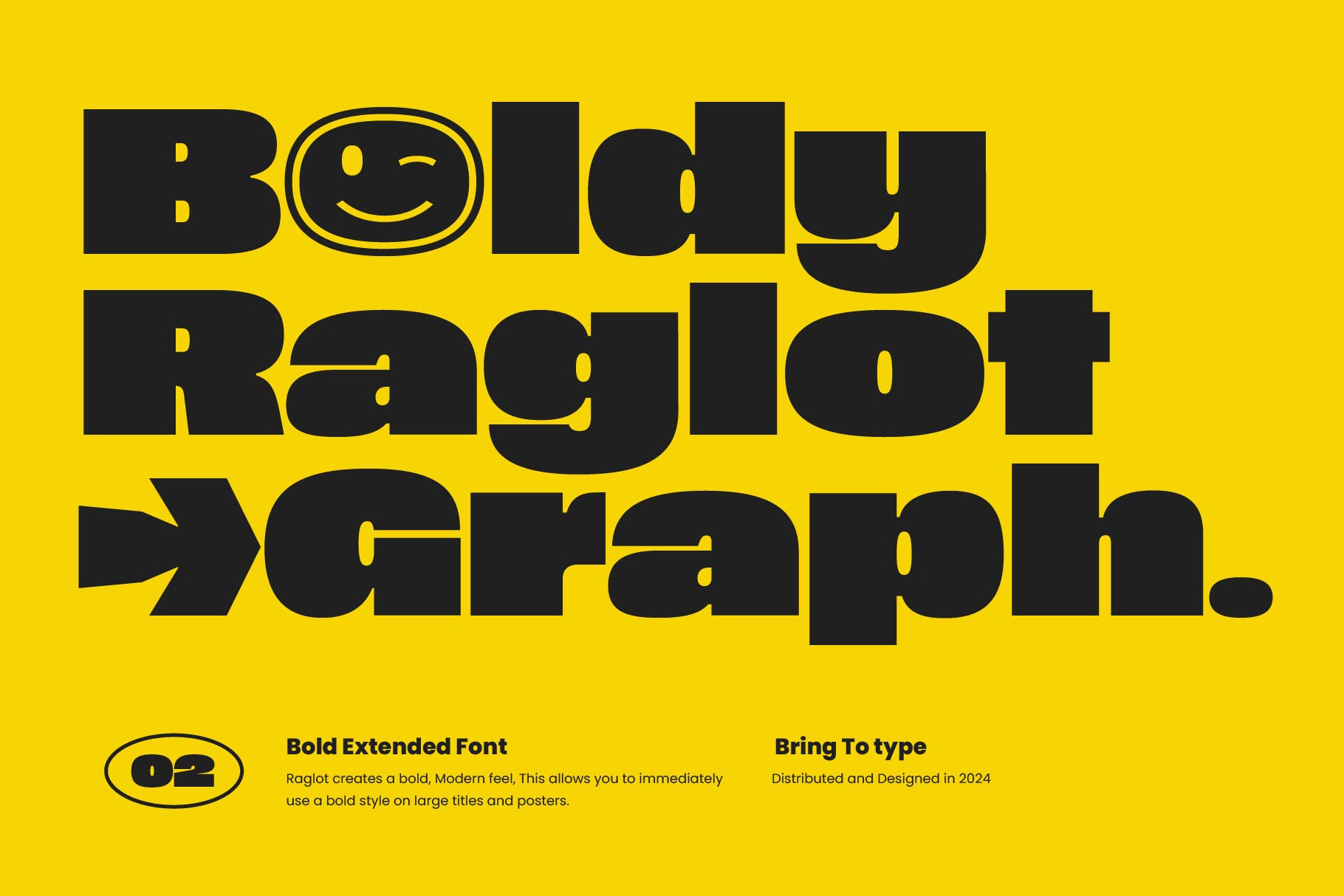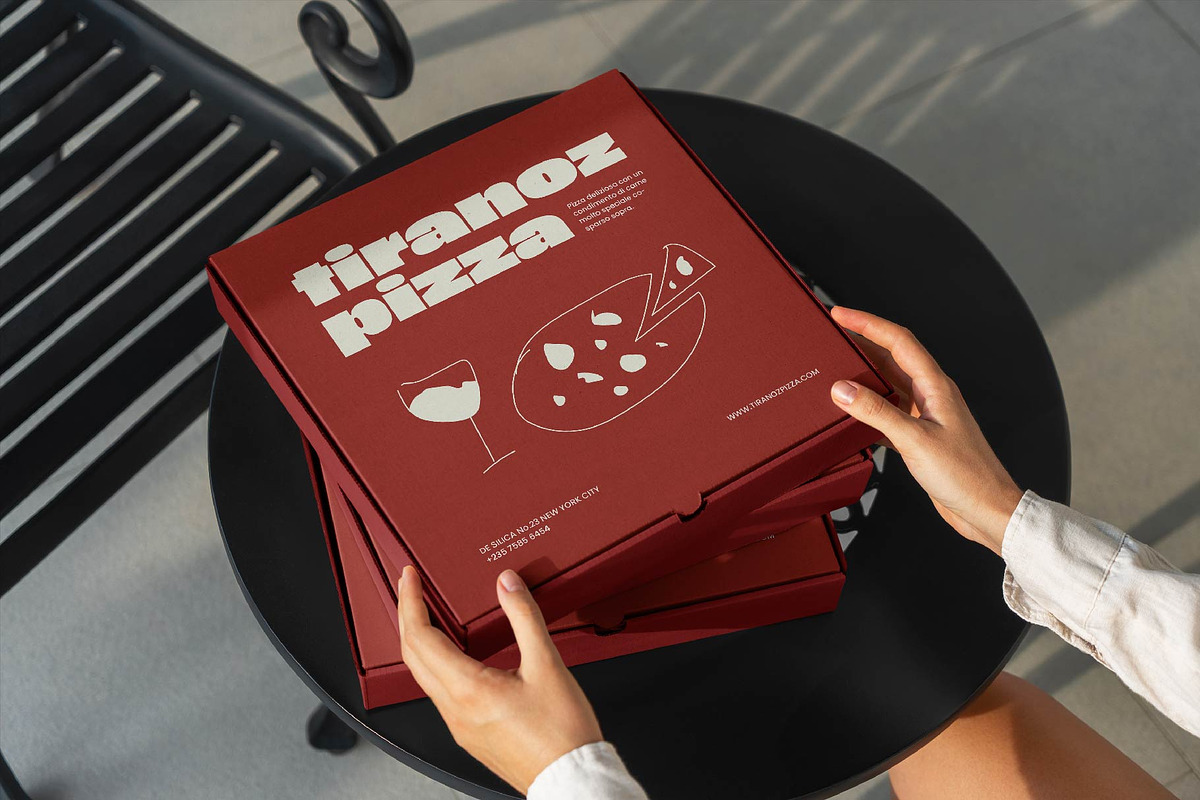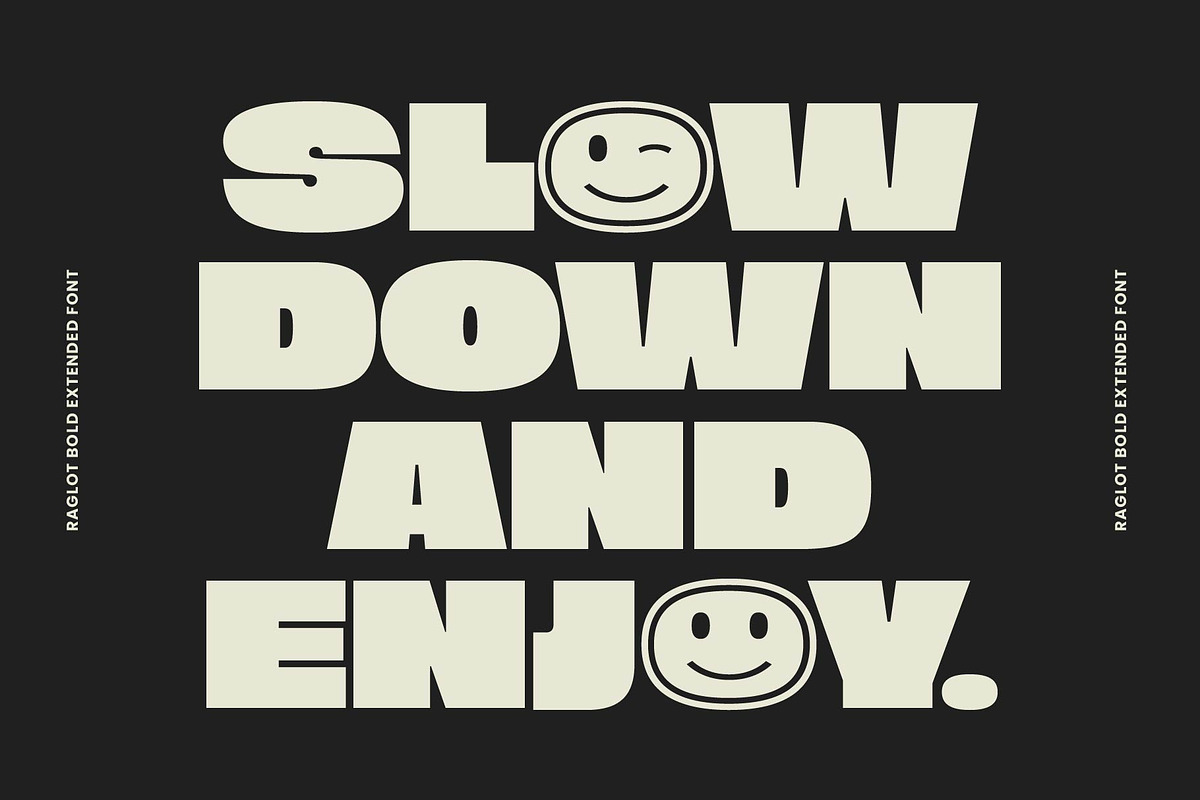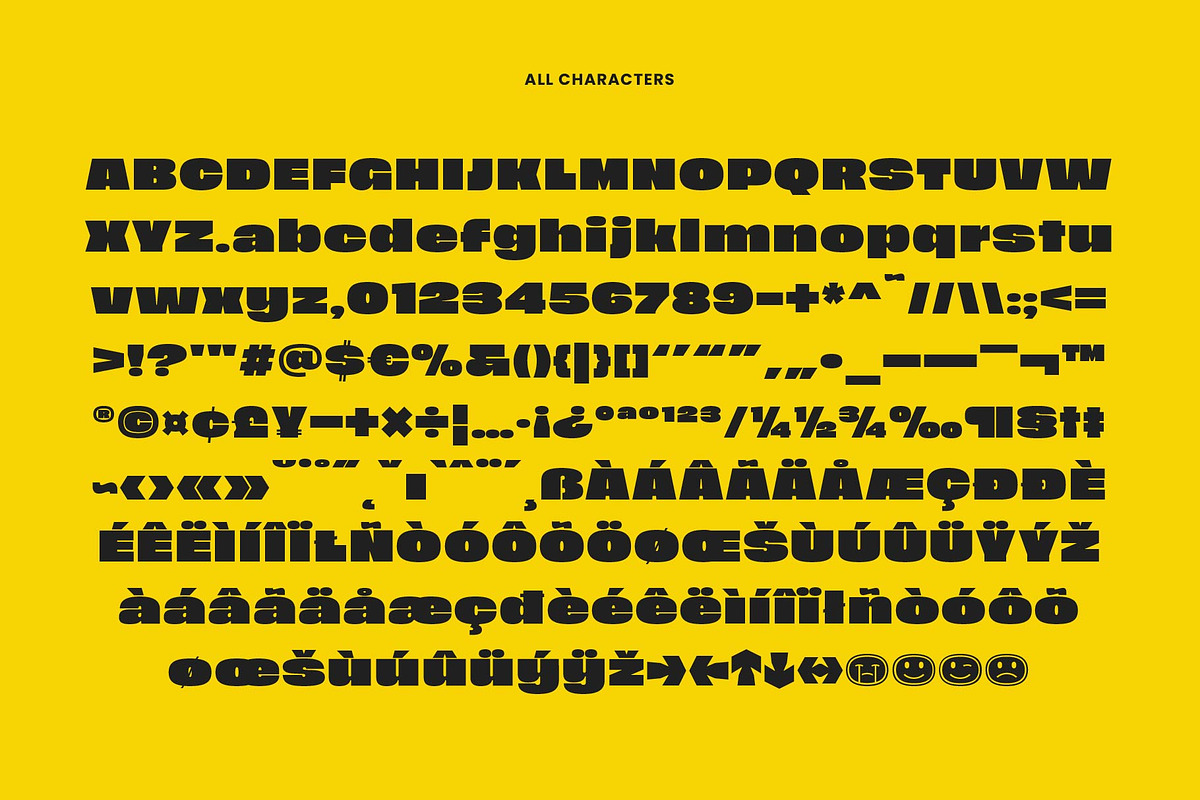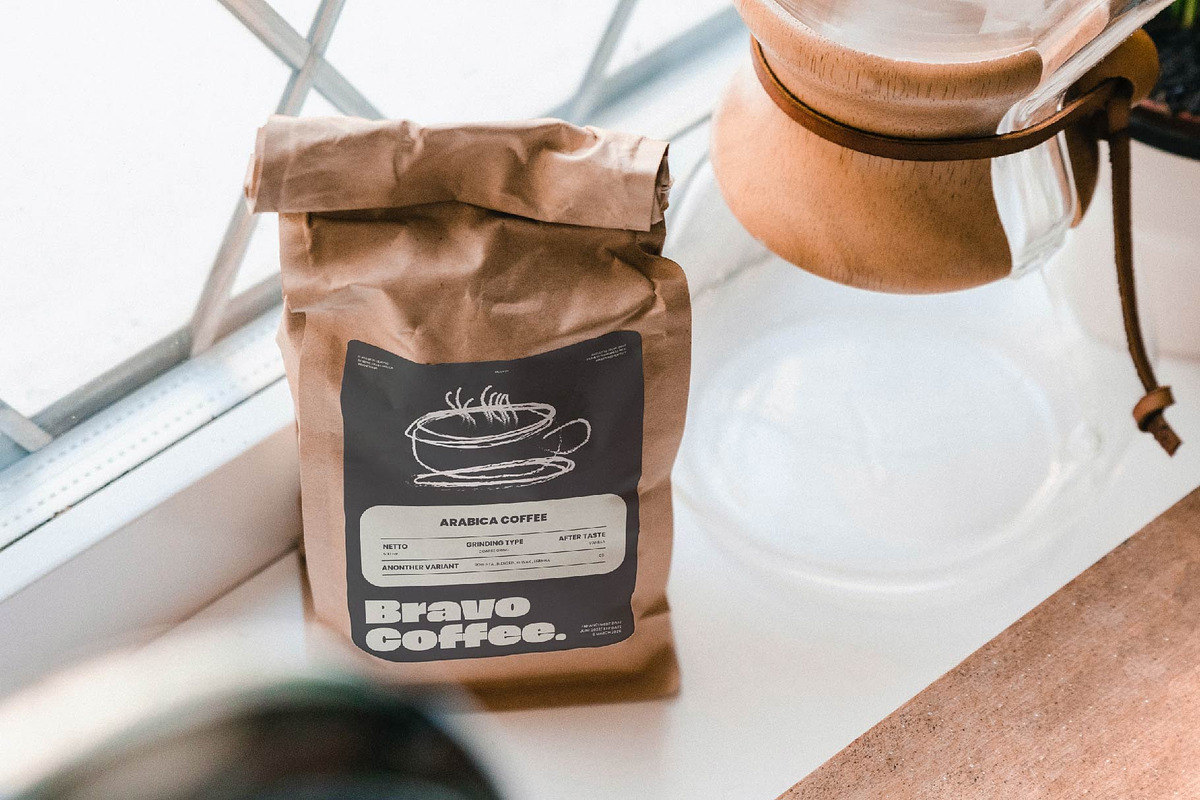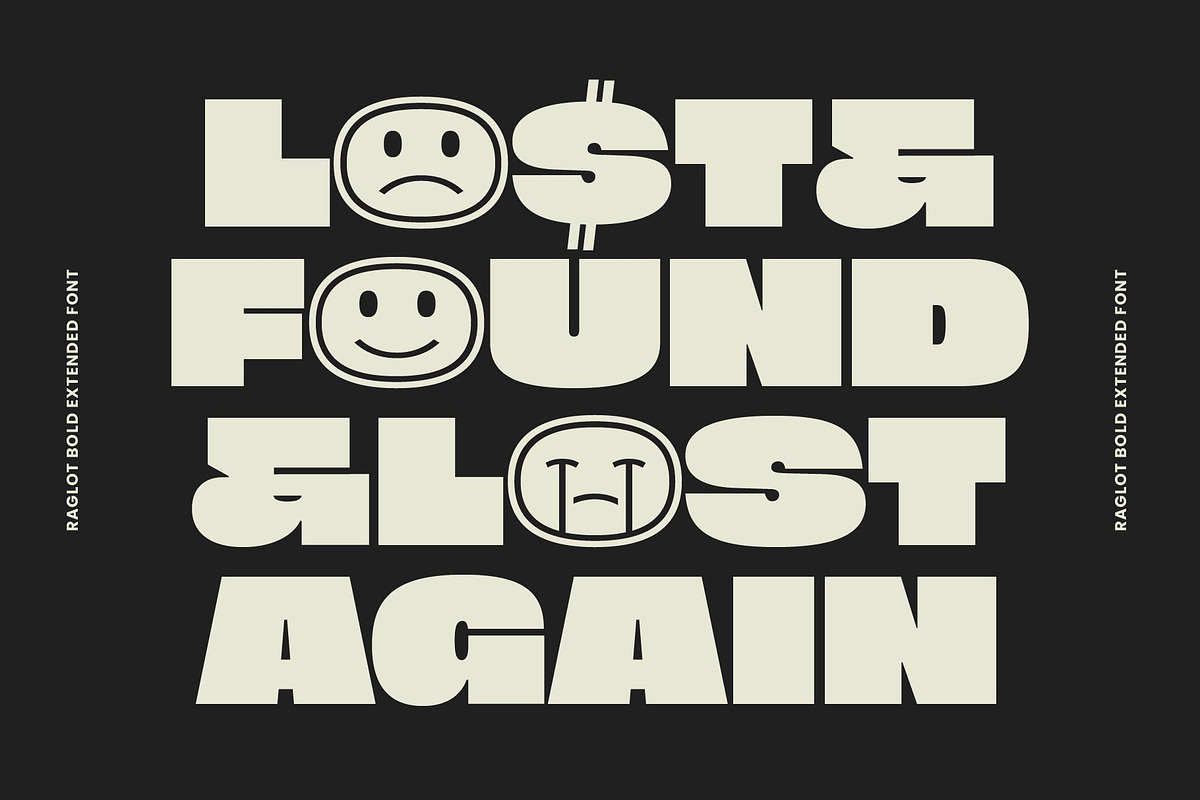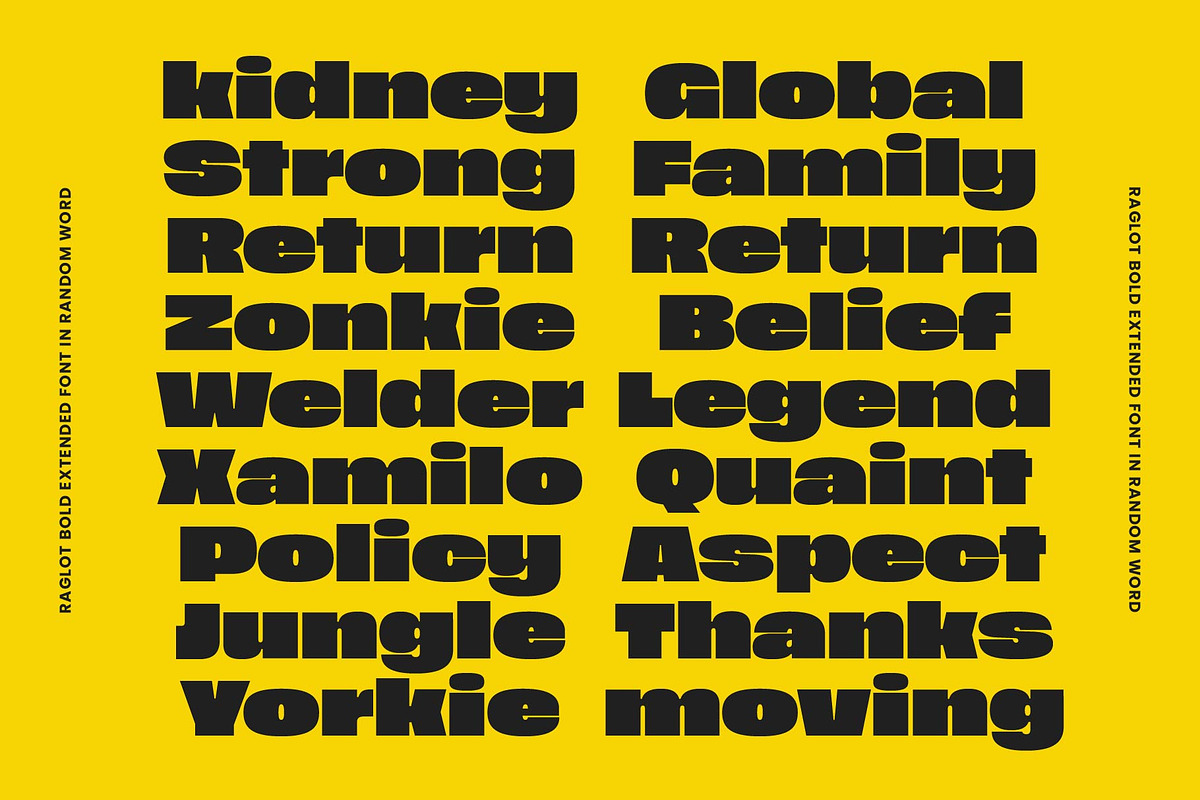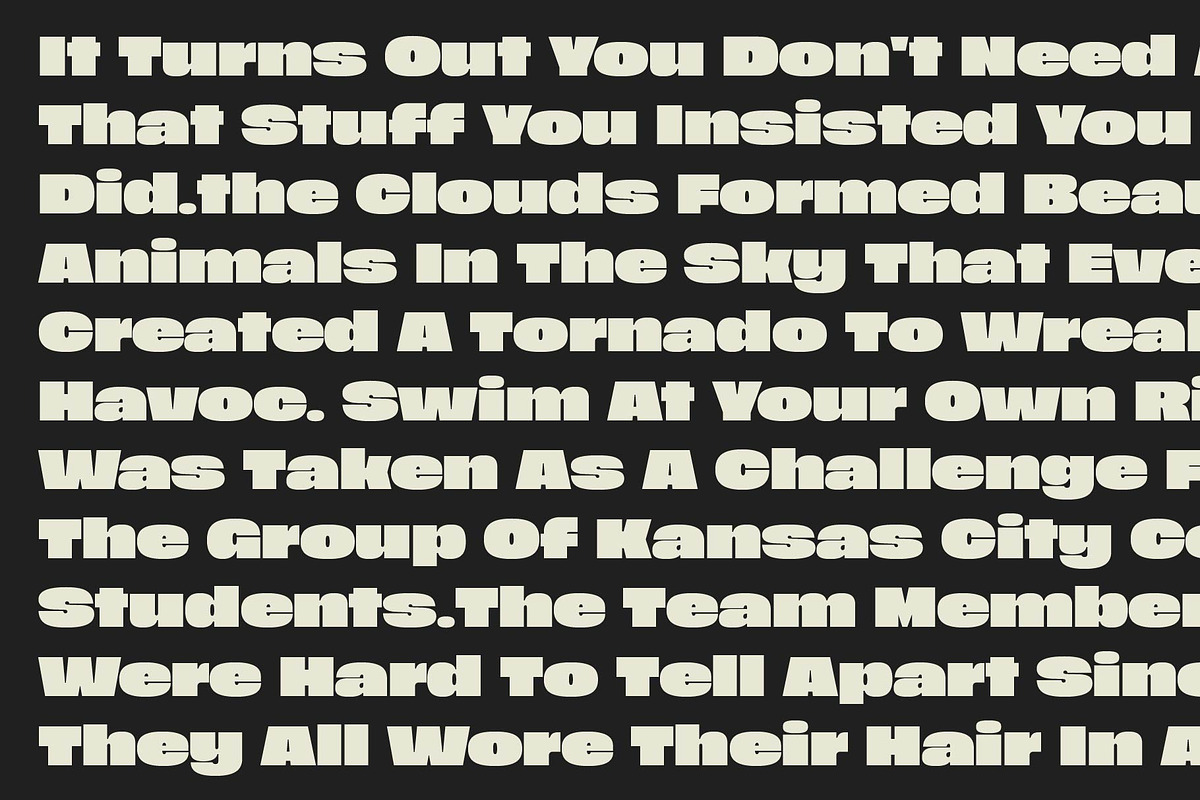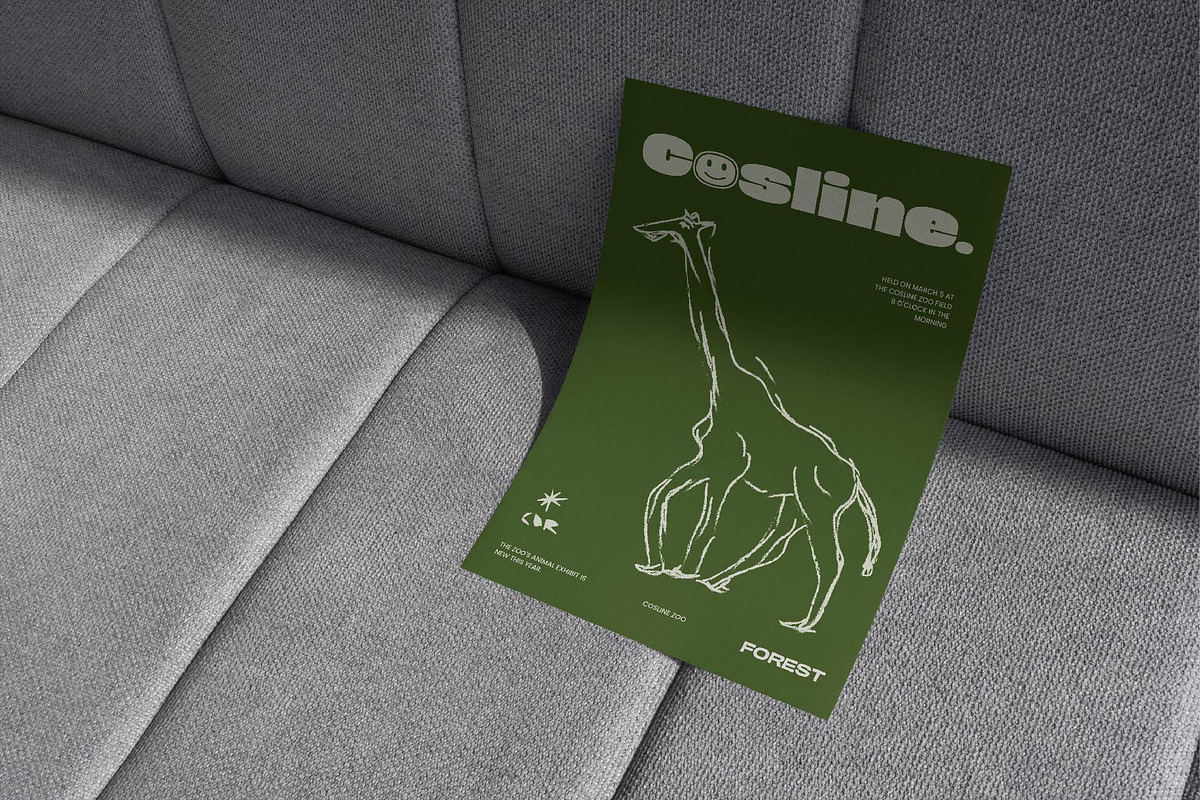
Raglot - Bold Extended Font
Raglot font is a font with an extended style that creates a bold and modern feel. This allows you to immediately use bold styles on large titles and posters.
Raglot Features:
Symbols & Punctuation